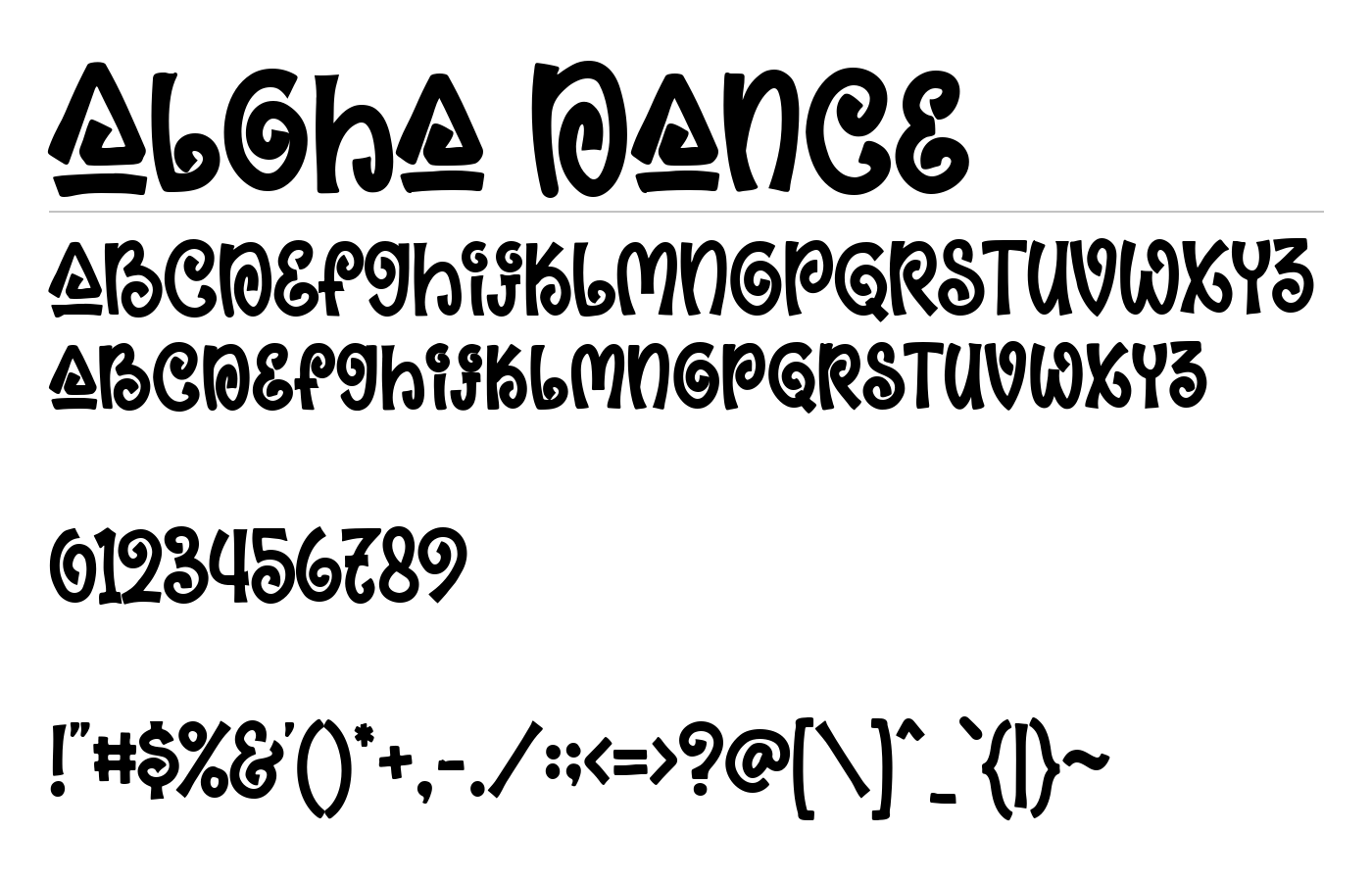
Aloha Dance is a playful, decorative sans serif font featuring bold, rounded shapes with quirky spirals and unique letterforms that evoke a fun, tropical vibe. Its energetic style makes it ideal for lively branding, party invitations, and casual headlines where a cheerful and informal personality is desired. This font works best in display settings, adding a spirited and exotic touch to creative projects.
Aloha Dance Font
About Aloha Dance Font